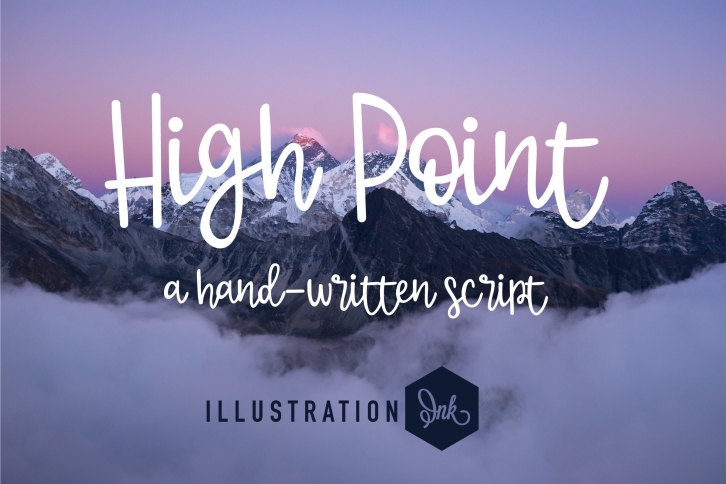
High Point is a quirky handwritten font. Made by handwriting instantly brings out the natural characteristics of your project. This font is perfect for websites, svg designs, home decor, branding, blogs, logos, invitations, and more. This hand-written cursive is a bit bouncy.